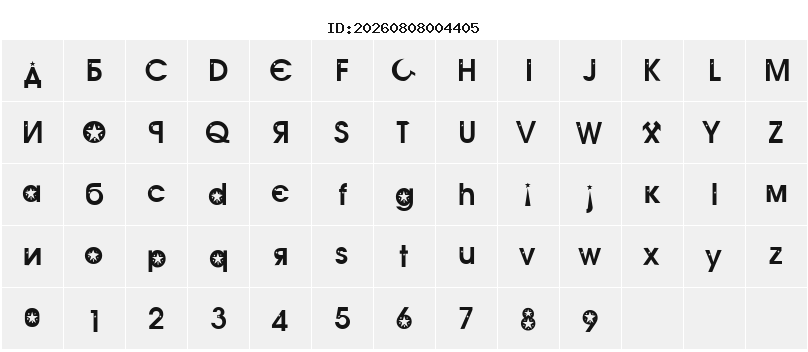
PseudoRussian Becker.ttf
PseudoRussian Becker Preview
About PseudoRussian Becker.ttf
PseudoRussian Becker.ttf is a modern, elegant sans-serif font designed for ultimate readability and visual harmony. Perfect for branding, headlines, web design, and print materials.